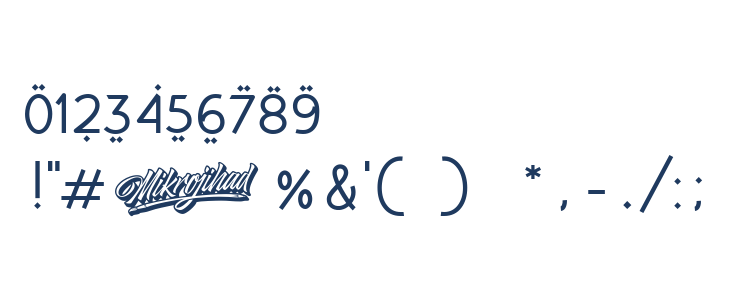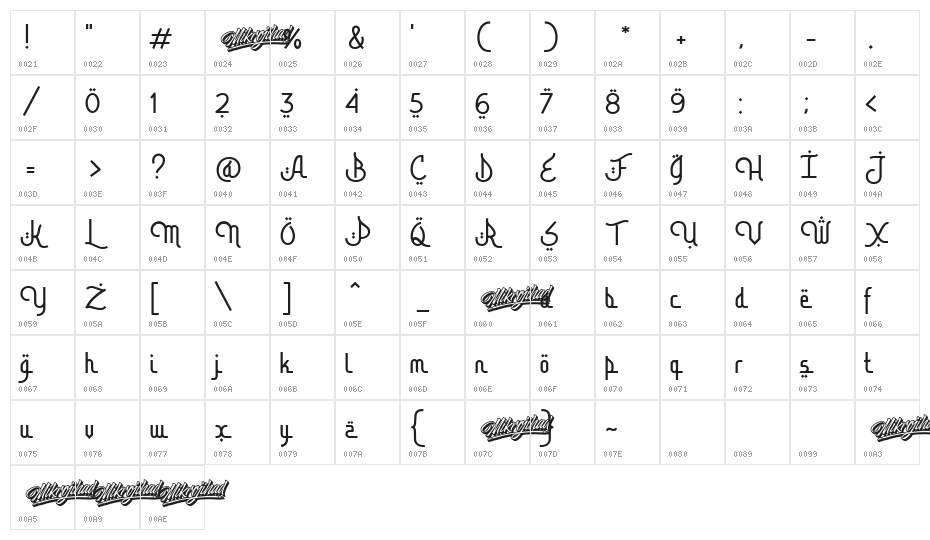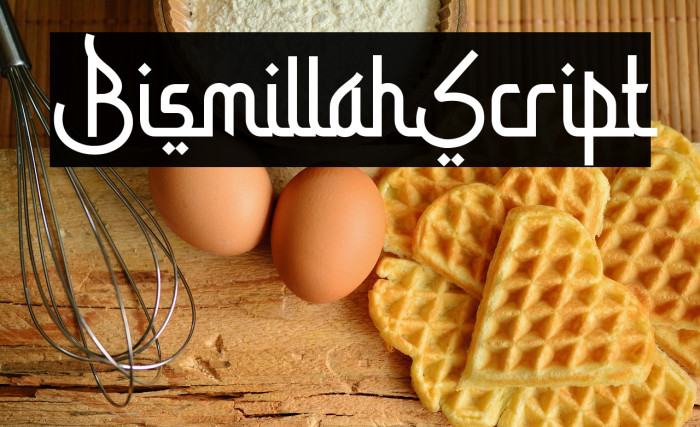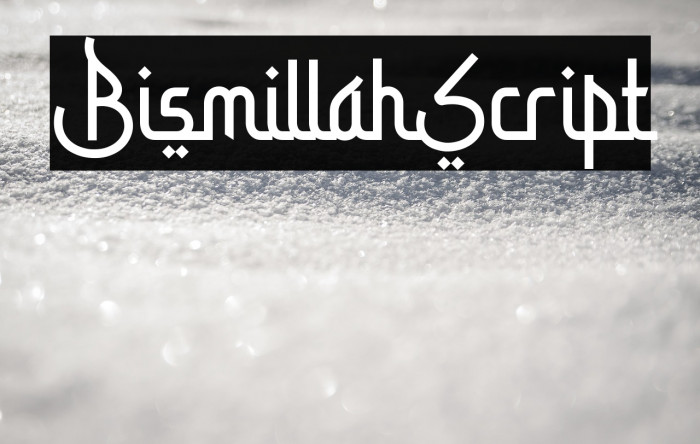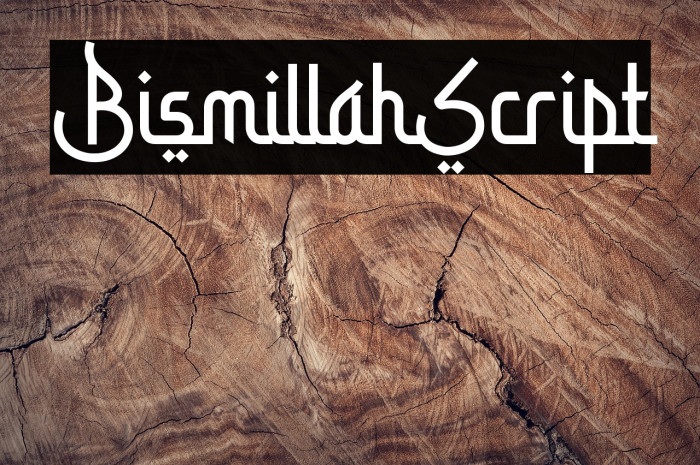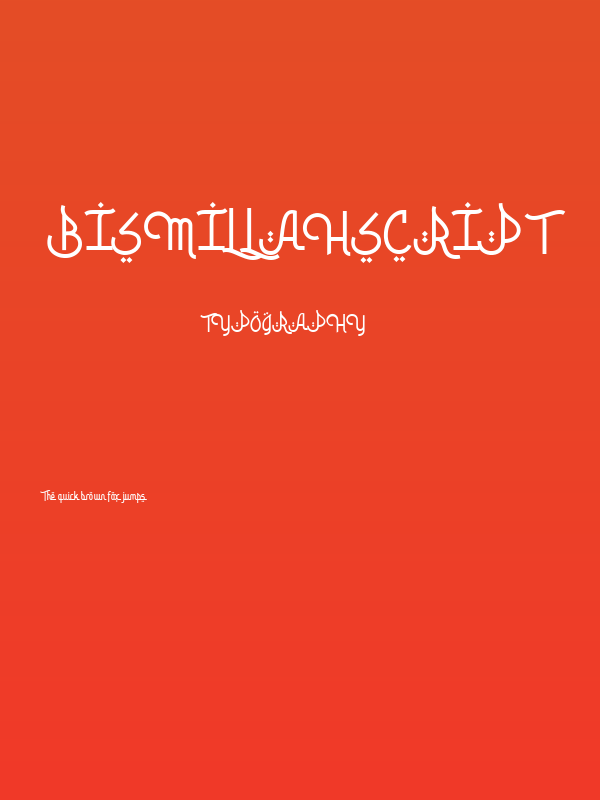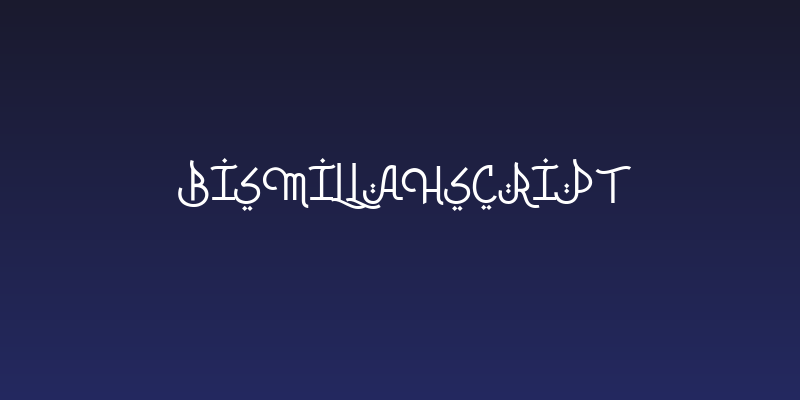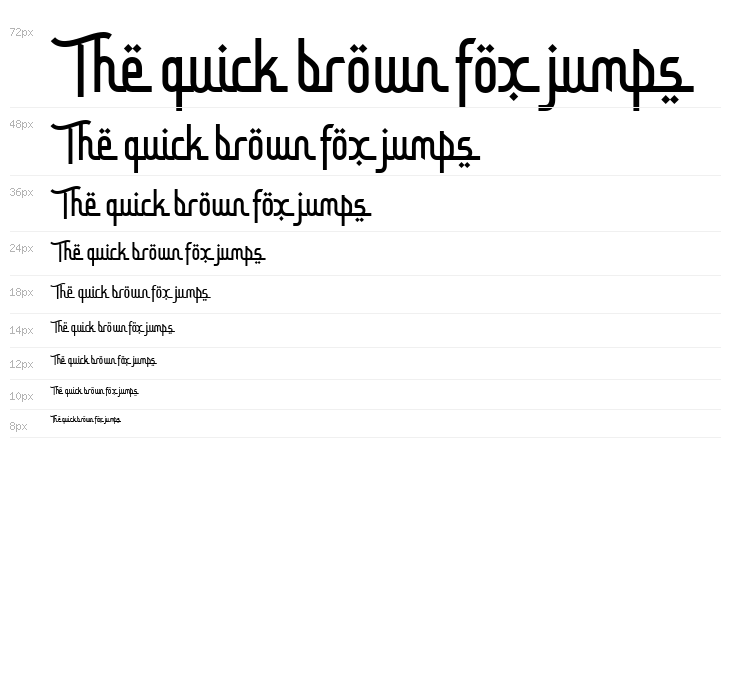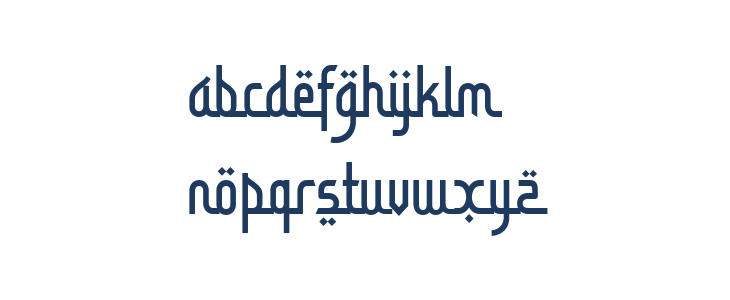
BismillahScript Font
BismillahScript Description
This font features a unique blend of modern and traditional elements, characterized by its decorative and intricate design. The uppercase letters are adorned with small, ornamental dots and curves that give it a distinct, artistic flair. The lowercase letters maintain a more streamlined appearance, yet still carry subtle decorative touches that enhance their visual appeal. The numerals are clean and straightforward, providing a nice contrast to the more elaborate letters. Special characters are included, maintaining the overall style with a touch of elegance. This font is perfect for projects that require a touch of sophistication and creativity.
| Use Case | Logos, Invitations, Artistic projects |
| Proposed Projects | Ideal for wedding invitations, branding, logo design, and artistic projects that require a unique and elegant touch. |